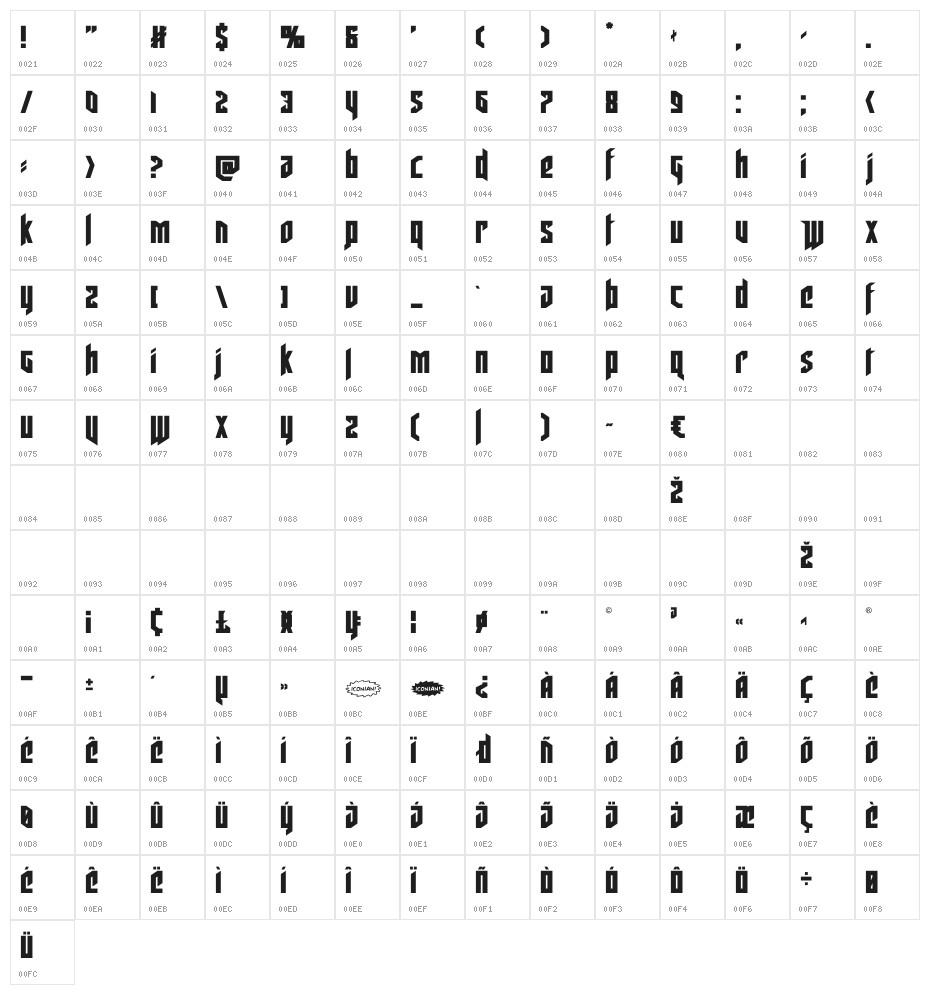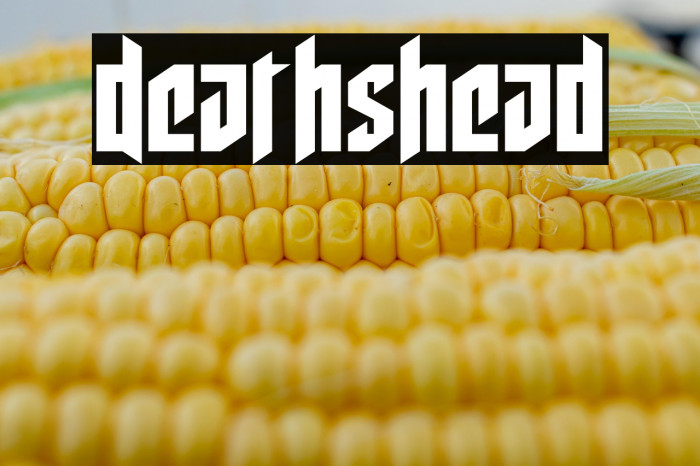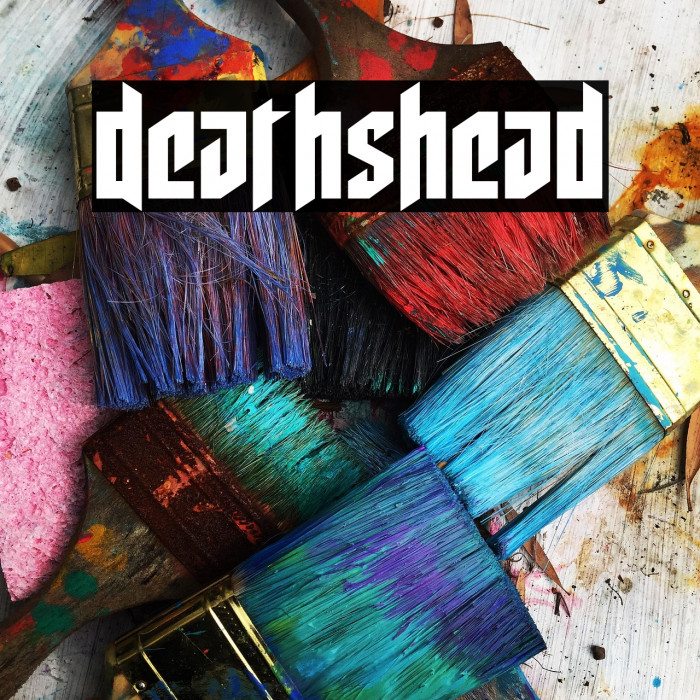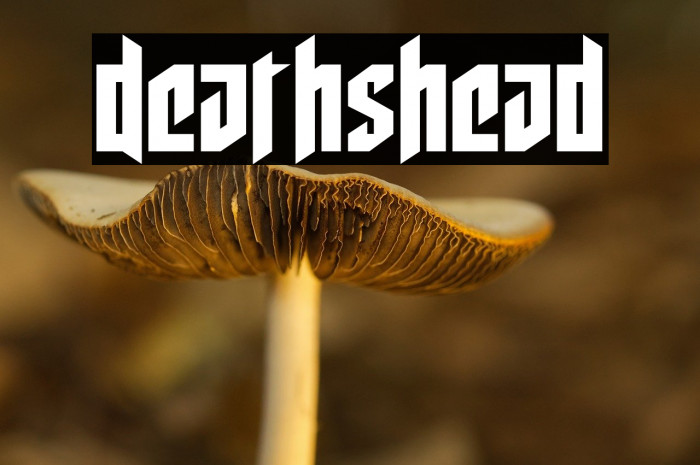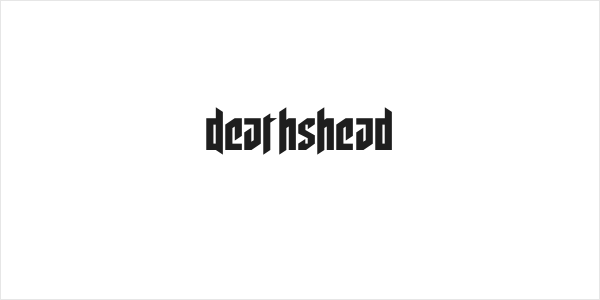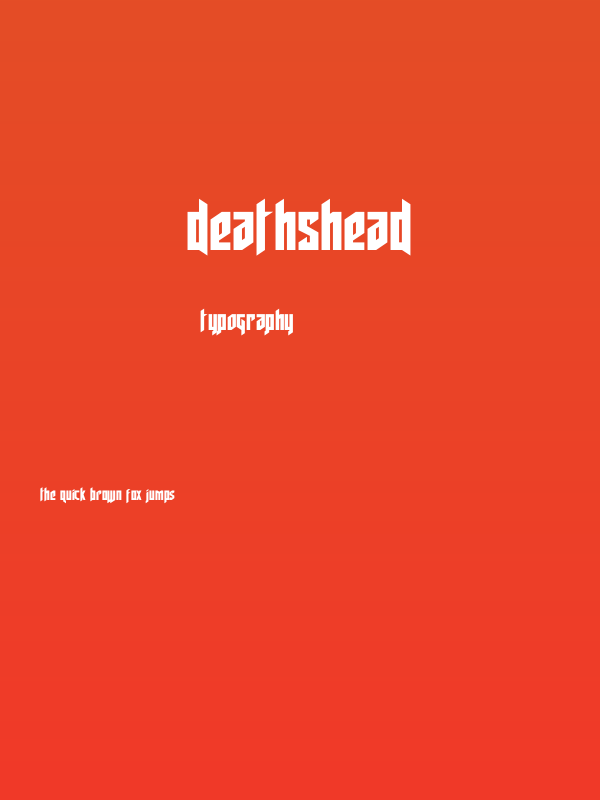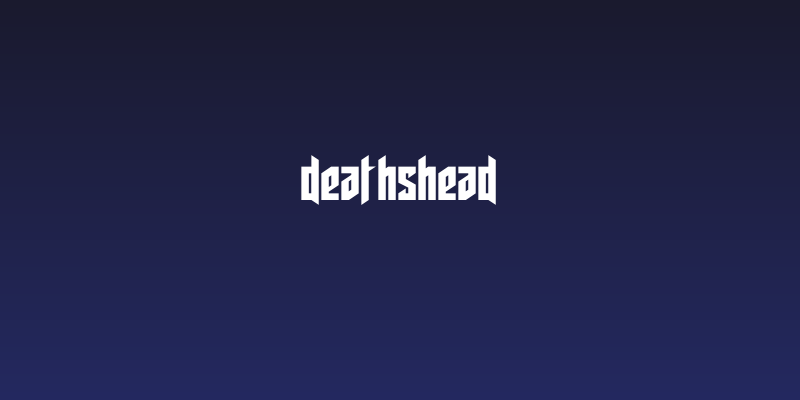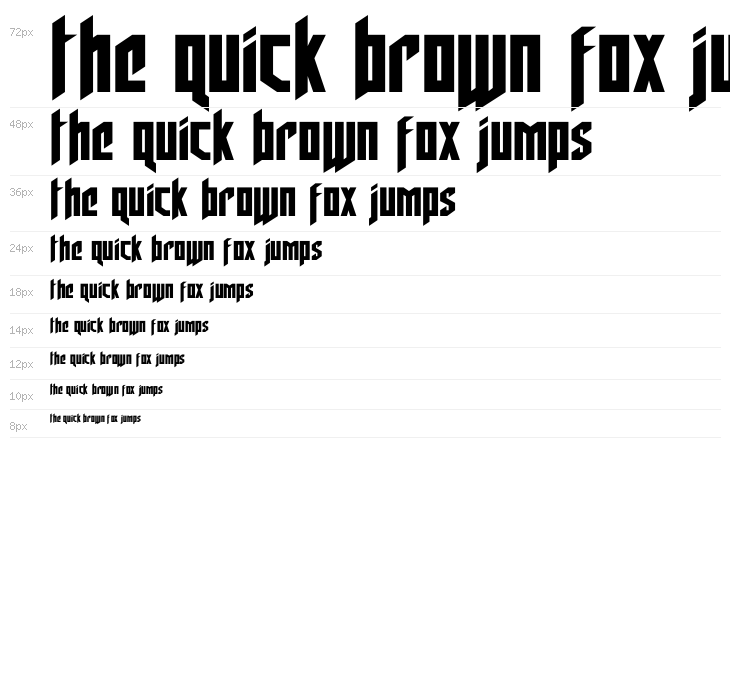
Deathshead Font
Deathshead Description
This font features a bold, angular design with a distinct Gothic influence. The characters are sharply defined with thick strokes and pointed edges, creating a dramatic and impactful appearance. The uppercase and lowercase letters maintain a consistent style, emphasizing verticality and symmetry. Numbers and special characters follow the same bold and angular aesthetic, ensuring uniformity across all glyphs. This font's strong visual presence makes it ideal for attention-grabbing designs.
| Proposed Projects | Ideal for use in posters, album covers, branding for edgy or alternative products, and any design requiring a strong, dramatic impact. |